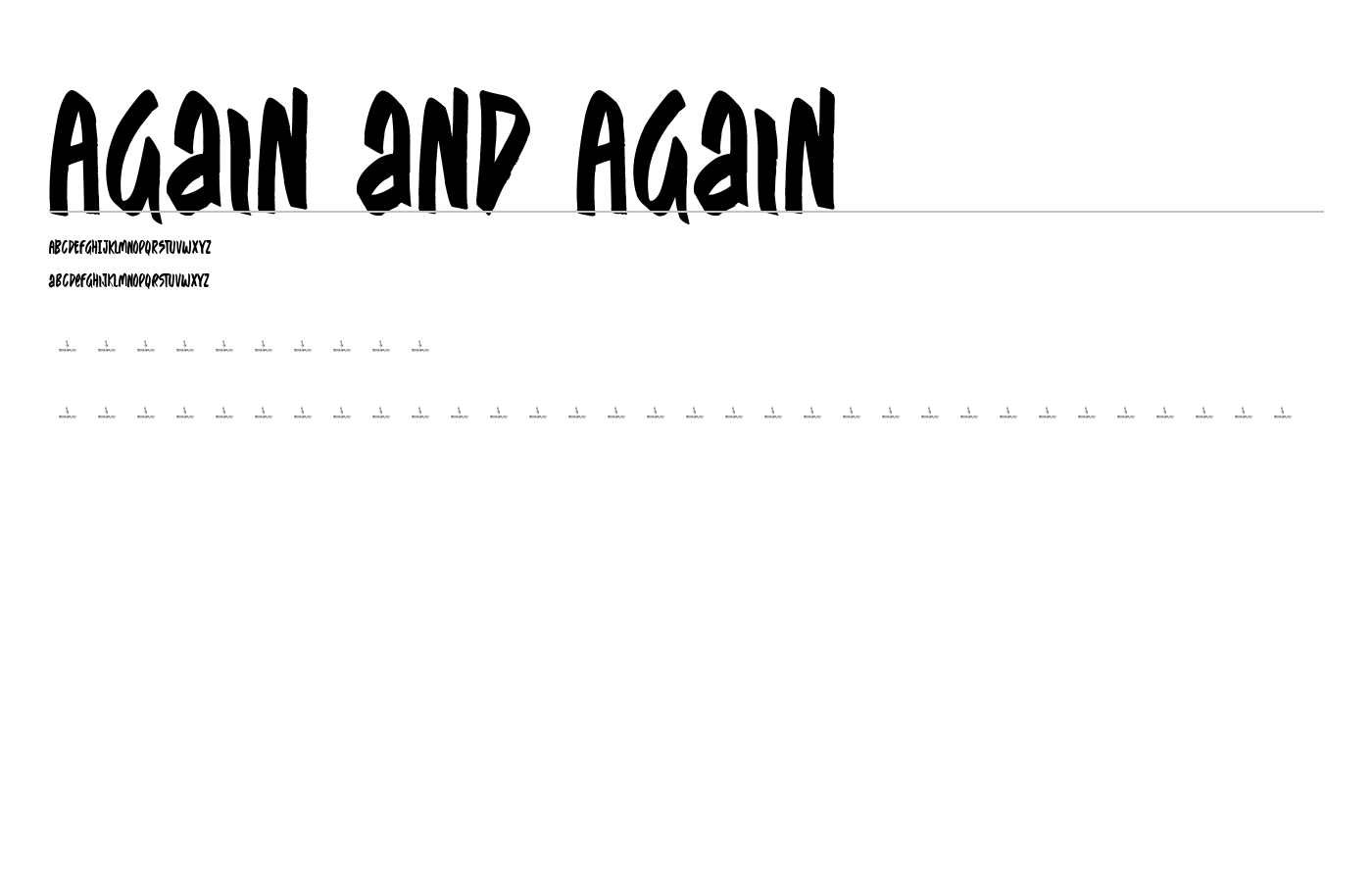
Again and Again is a bold, hand-drawn display font with a playful and energetic vibe. Its tall, condensed letterforms feature irregular, brush-like strokes that give the text a lively and informal feel, making it perfect for creative projects, posters, and branding that seeks a unique, artistic touch. This font works best in headlines and eye-catching designs where a casual yet striking personality is desired.
Again and Again Font
About Again and Again Font